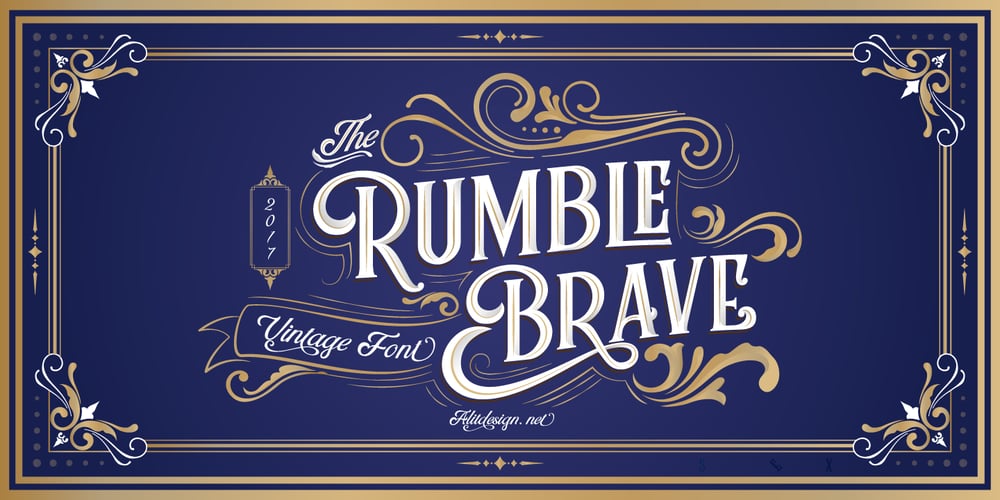
Rumble Brave Vintage Fonts Font Family was designed by Alit Suarnegara and published by Alit Design. Rumble Brave Vintage Fonts contains 8 styles and family package options. Introducing Rumble Brave Vintage Fonts Packages. Lately I’ve been happy to see the design style with its vintage Victorian classic. Hence from that I launched fonts packages with vintage style. In this package, there are three types of letters: serif, script, and dingbat. The three font combinations are compatible with the Victorian classic design concept. You can also use each font by itself, without combining it with the others in the package.